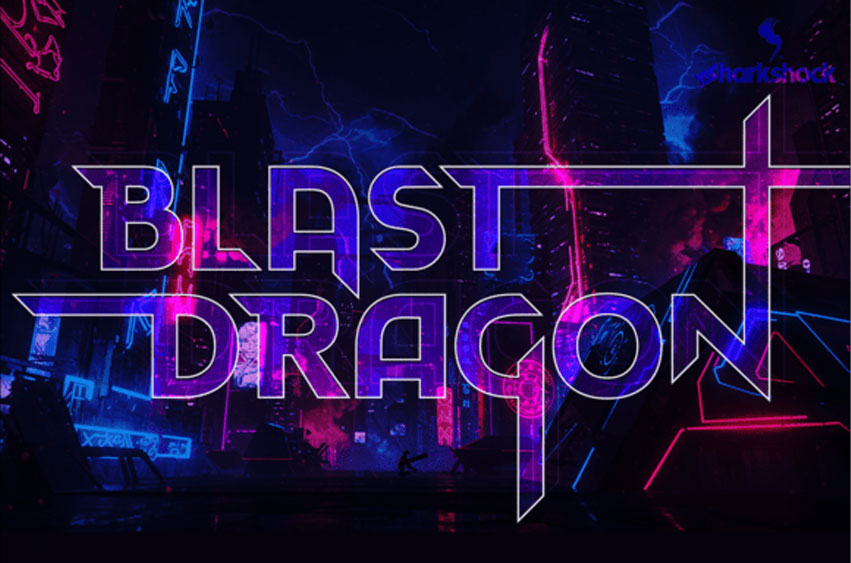
Blast Dragon Font Futuristic Cyberpunk. Blast Dragon is an edgy, all-caps display font that radiates a high-tech, vigorous energy, perfectly suited for the neon-drenched dystopia of the cyberpunk genre.
This typeface masterfully blends bold, condensed geometry with sharp, unexpected extensions and 45-degree angled terminals, giving the glyphs a blade-like, dynamic appearance. Its aesthetic suggests speed, power, and a futuristic, rebellious spirit. This is illustrated in glyphs such as A or 7. Most uppercase characters feature lines that terminate at a 45-degree angle. This is repeated elsewhere for consistency, most notably within serifs and numbers. Several ascenders and descenders extend outward in a blade-like fashion. The result is a captivating type that keeps the eyes moving throughout. Use it for a sports logo, anime poster, or web graphics.
Ideal for eye-catching video game titles, esports team branding, dark synthwave music covers, sci-fi movie posters, and web graphics that demand a captivating, forward-moving presence. Blast Dragon is the ultimate tool for delivering a powerful headline in any high-stakes, digital world.